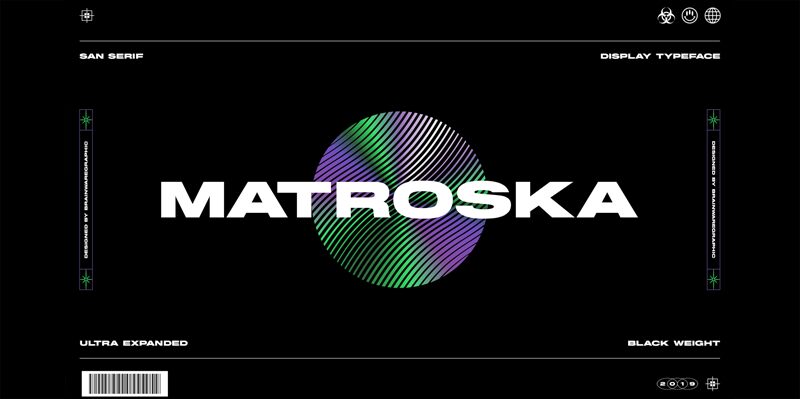
MATROSKA
Matroska, crafted by Brainware Graphic, stands out with its bold and expanded sans serif style that exudes confidence and modernity. The font's generous proportions make a robust statement, while its clean lines maintain readability and sophistication. This striking typeface draws the eye with its commanding presence, making it an excellent choice for branding projects, advertising campaigns, and editorial headlines that aim to leave a lasting impression.
The Matroska font is versatile in application; its aesthetic appeal lends itself well to creative industries looking to project strength and innovation. Whether gracing the cover of a cutting-edge magazine or anchoring the identity of a tech startup, Matroska delivers clarity with character.
Brainware Graphic